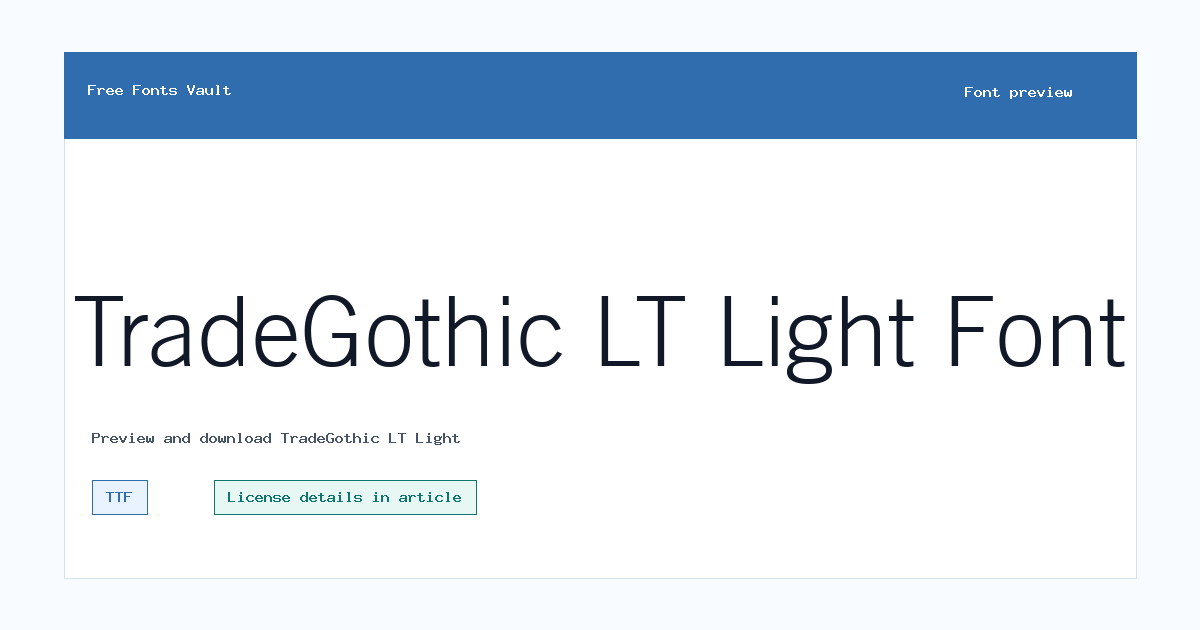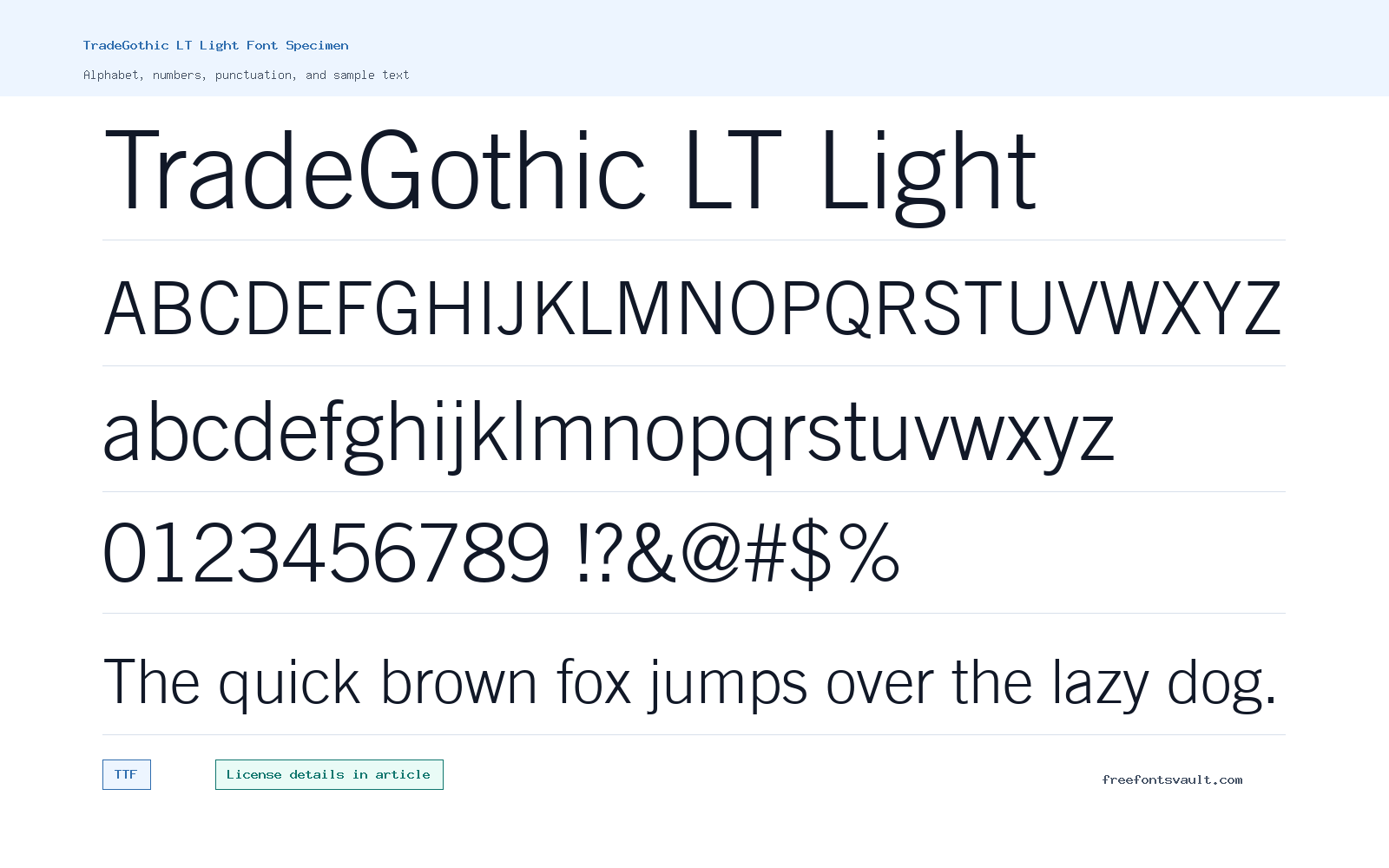
TradeGothic LT Light
TradeGothic LT Light Font
TradeGothic LT Light is a light-weight sans serif font with regular and oblique styles. Its narrow, clean letterforms make it useful when you want compact text that still feels plain, structured, and easy to scan.
About TradeGothic LT Light
TradeGothic LT Light works best as a restrained sans serif choice rather than a decorative display face. The light weight gives headings and short text a lean appearance, while the normal and oblique styles give you a simple way to add contrast without changing families. Because the weight is 300, it can look refined in larger sizes, but it may become too thin in small captions, low-resolution previews, or weak color contrast. Test it with your real words in the preview box before using it for body copy, menus, or long passages.
• Light 300 weight with a clean sans serif appearance for compact headings and short text.
• Editorial-style headings, title blocks, labels, and clean poster text where a light sans serif is appropriate.
The font information names Adobe Systems Incorporated, 1992, and states that Trade Gothic is a trademark of Linotype-Hell AG and/or its subsidiaries. A specific individual designer is not identified in the details used for this page.
Use TradeGothic LT Light where you need a quiet, narrow-feeling sans serif voice and enough size for the thin strokes to remain clear. It is better for short lines than dense reading. Pair it with a sturdier text face if your design needs paragraphs, small navigation, or mobile readability. In dark themes or image overlays, increase size, tracking, or contrast so the light weight does not fade into the background. The oblique style is useful for emphasis, but too much slanted text can make a layout feel uneven, so keep it for short supporting phrases.
Is TradeGothic LT Light good for long paragraphs?
It is better for headings, labels, short blurbs, and layout accents. The light weight can become harder to read in long paragraphs or small sizes, so test it carefully before using it as body text.